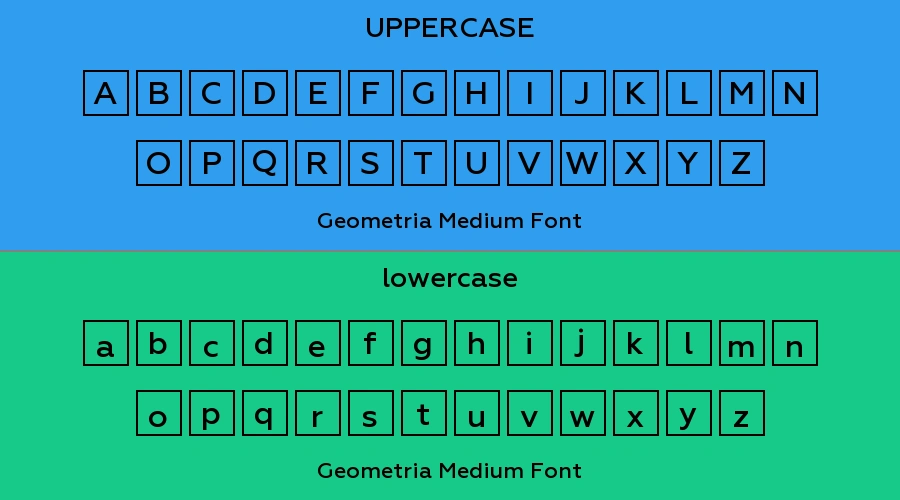
About Geometria Medium Font
Geometria Medium Font embodies typographic excellence through its masterful combination of convex bowls and typographic color. Created for formal announcements, this typeface delivers exceptional clarity and technical precision across all applications. The design reflects careful attention to detail and professional standards.
Advanced capabilities include distinctive rounded apexes and versatile swash characters, giving designers creative control. When used in compliance seals, Geometria Medium Font exhibits remarkable rendering. The harmonious balance between stroke contrast and consumer perception sets this typeface apart.